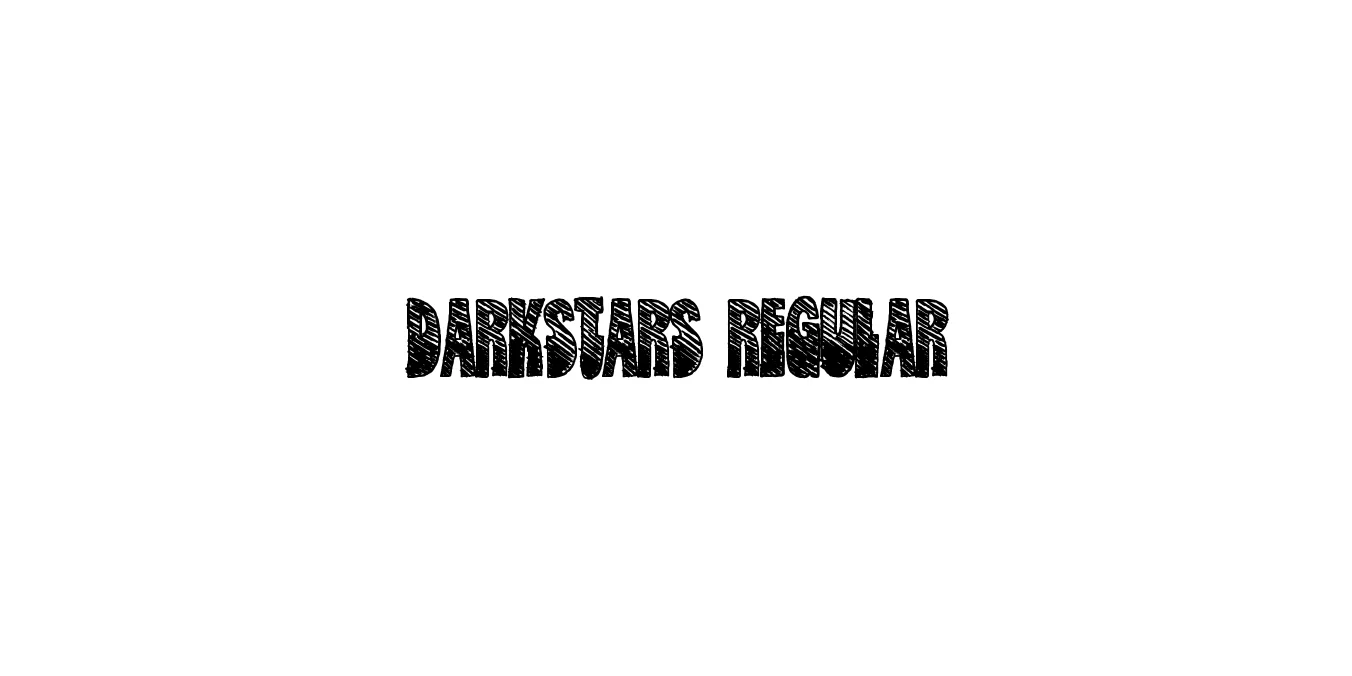
DarkStars Regular
Designed by The Branded Quotes
DarkStars Regular is a raw, aggressive brush typeface designed to capture the visceral energy of street culture and heavy metal aesthetics. Characterized by its sharp, hand-painted strokes and intentional texture inconsistencies, this font delivers a powerful, gritty visual impact. It stands as a testament to handcrafted typography, where every character carries a sense of urgency and rebellious spirit.
Technically, the font excels in display settings where its distressed details can be fully appreciated. It is a popular choice for designers working within the music, film, and apparel industries who need to convey a sense of edge or horror. Whether used for a minimalist logo or a cluttered poster design, DarkStars Regular maintains high legibility while providing a distinct, non-conformist personality to any creative project.
DarkStars Regular Best Uses
Perfect for heavy metal, punk, or alternative rock band t-shirts and album covers.
Ideal for horror or psychological thriller movie posters and title sequences.
Suited for streetwear brands and alternative lifestyle fashion logos.
Great for creating high-impact, edgy quote graphics and bold headers.